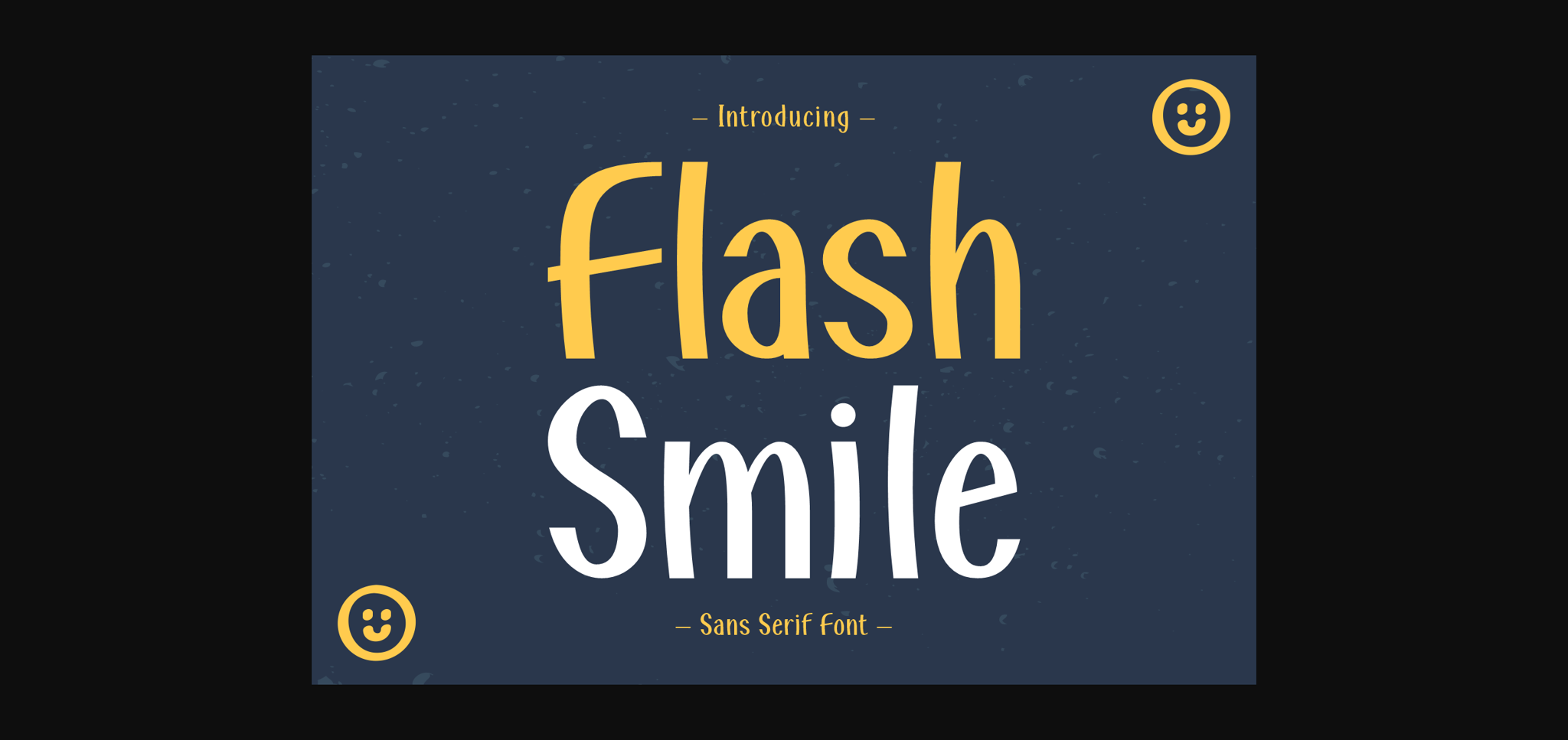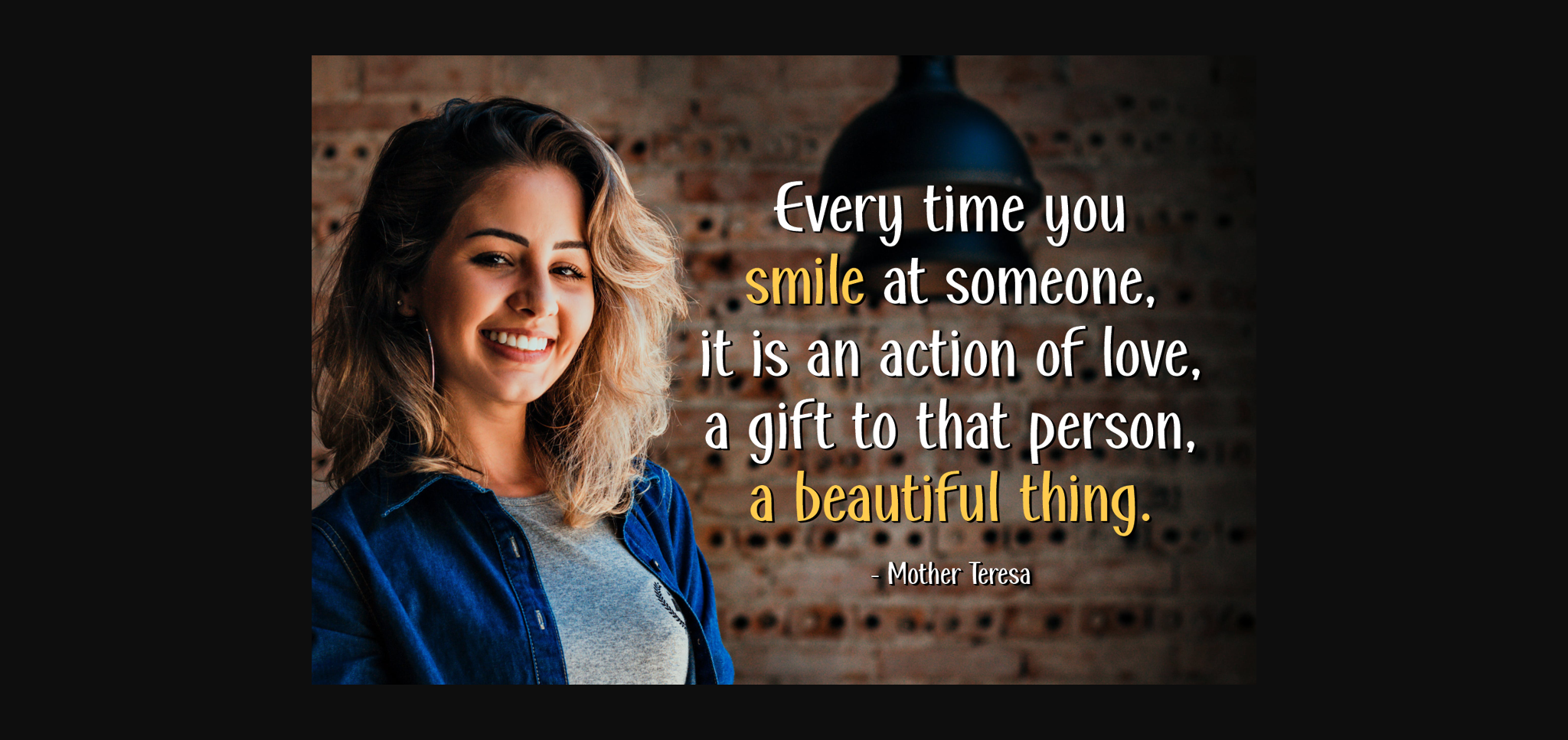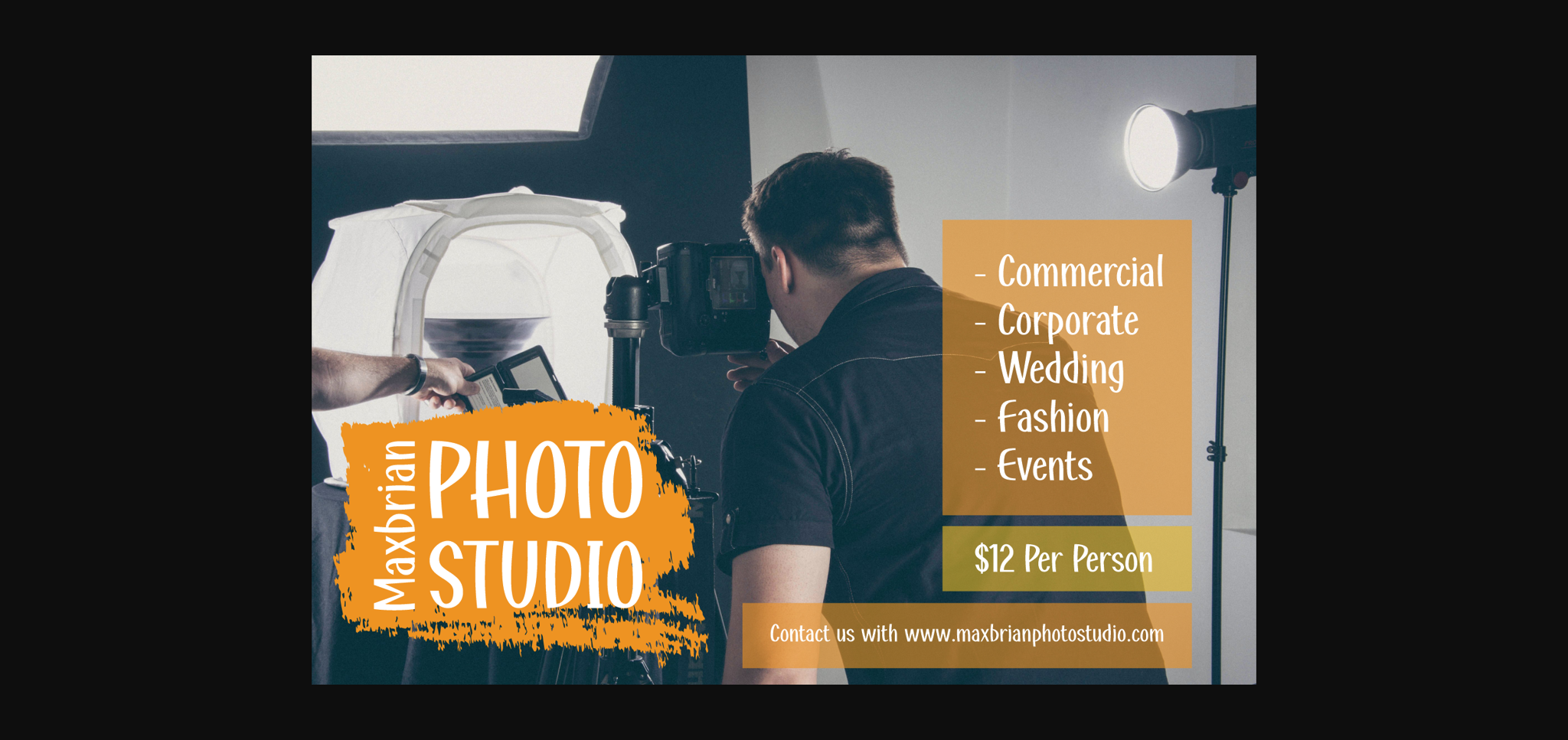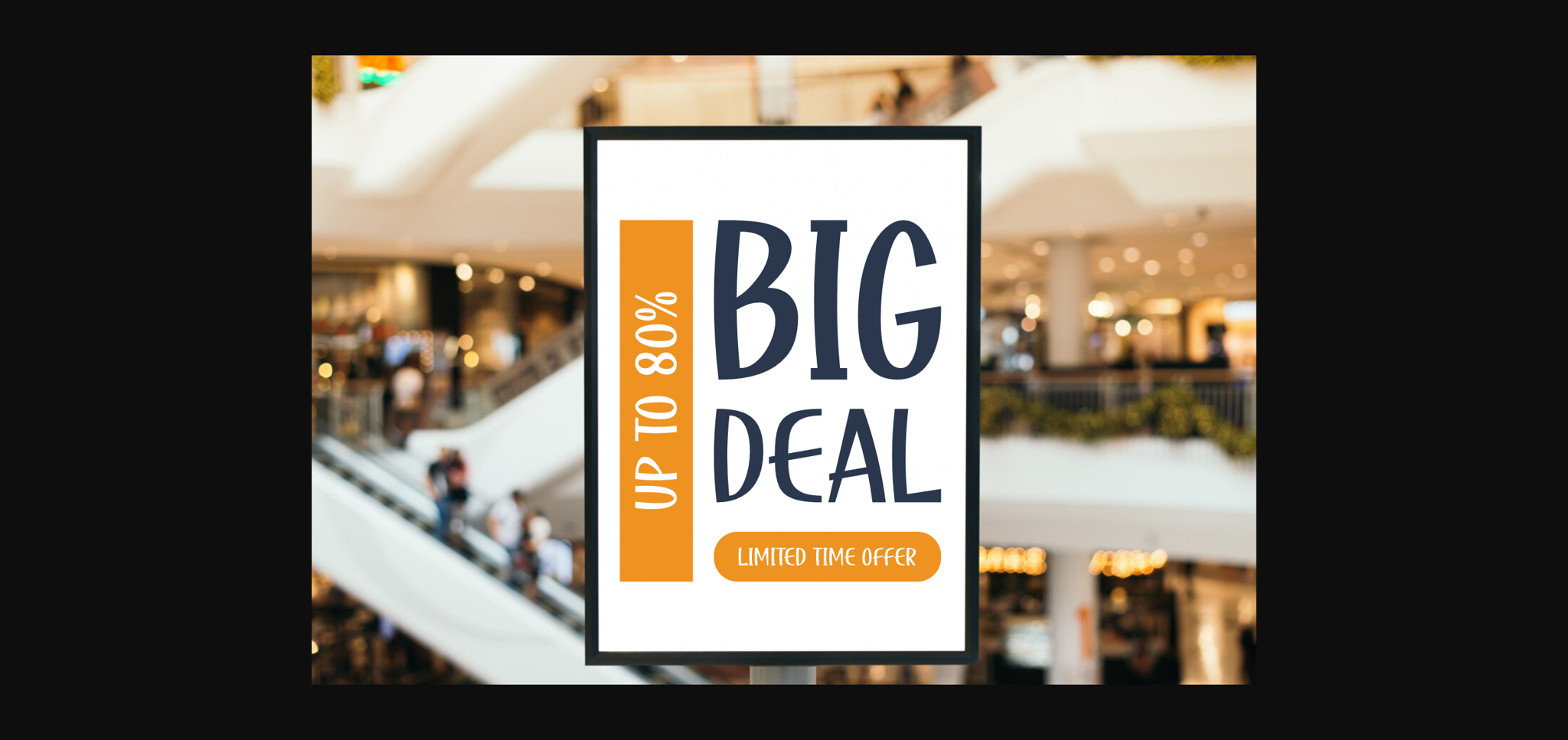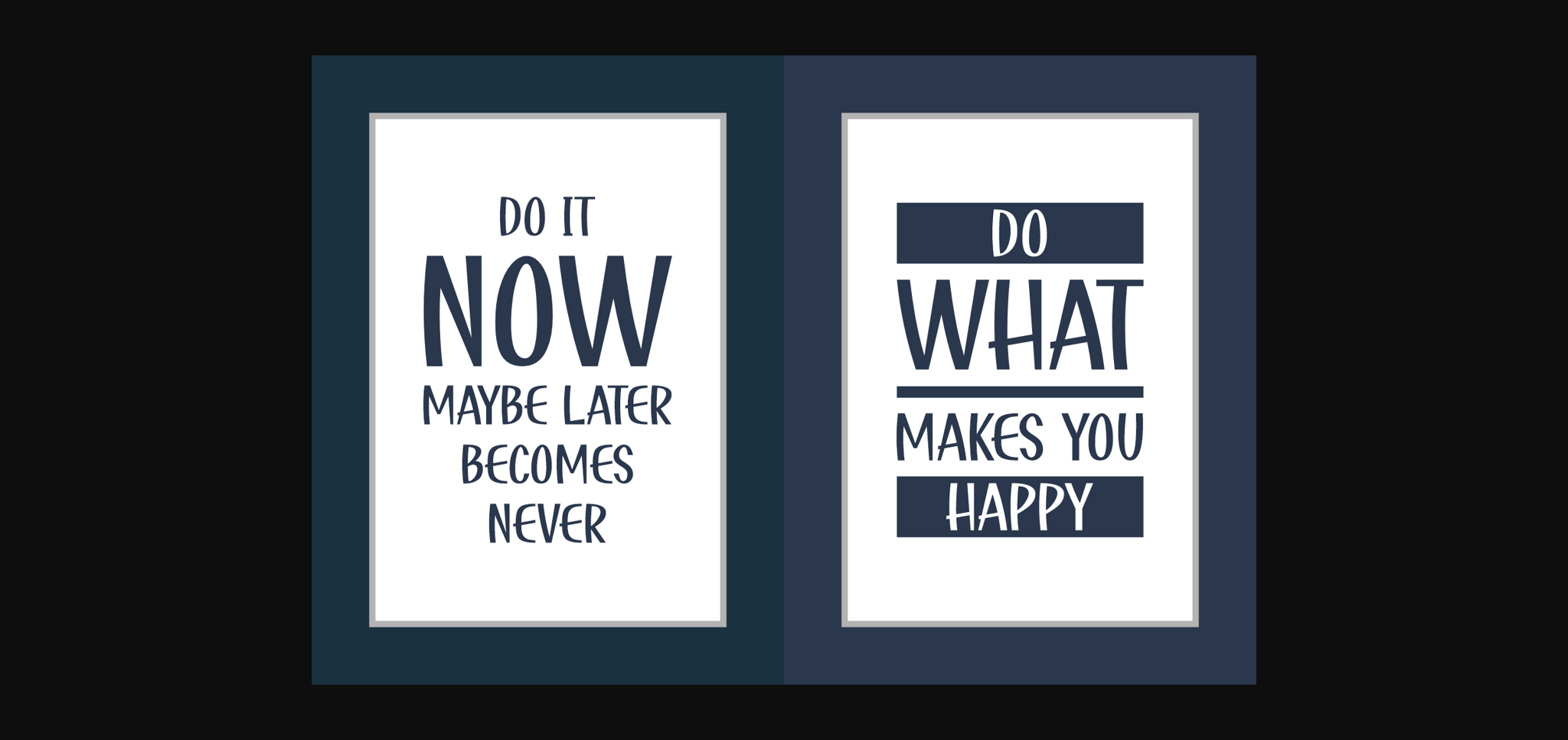
Flash Smile Font
About Flash Smile Font
Flash Smile is a delightful blend of playfulness and modernity. Its clean lines and friendly curves exude energy and positivity, making it perfect for a variety of design projects. Whether used for headlines, branding, or advertising, Flash Smile adds a vibrant touch to any creative endeavor.